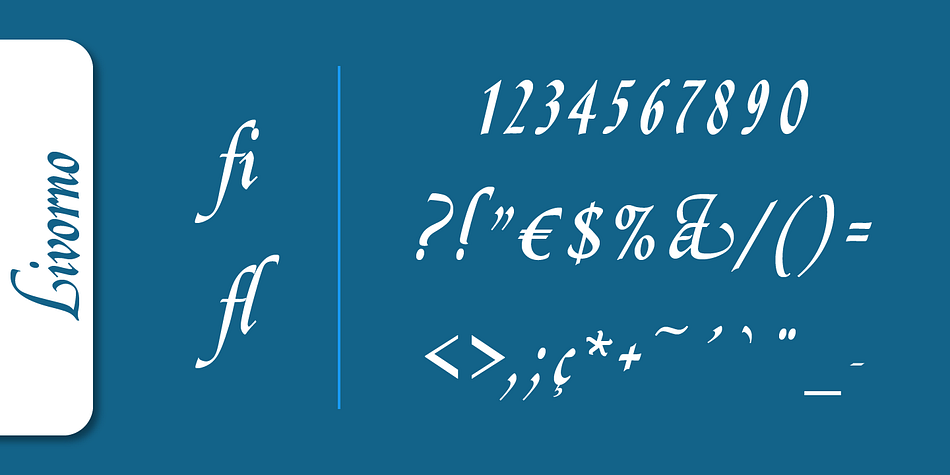
Livorno Pro
Livorno Pro is a blackletter, historical and script font family. This typeface has three styles and was published by SoftMaker.
Livorno Pro is a superb calligraphic script. In contrast to its more reserved lowercase, Le Griffe’s capitals are quite lively- especially those with swashes and flourishes. Livorno Pro has imitated the skilled penmanship of free-flowing calligraphy in digital form. Now, instead of writing out beautiful text by hand, you can set it quickly and easily with this masterful type!